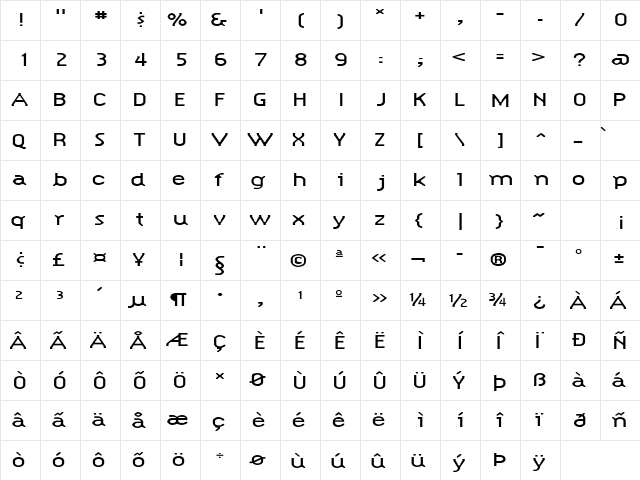
HypeStyleExtended Regular
Design Context for HypeStyleExtended Typeface
HypeStyleExtended takes a measured approach to typography — its balanced proportions and neutral character make it a reliable workhorse for both digital and print work.